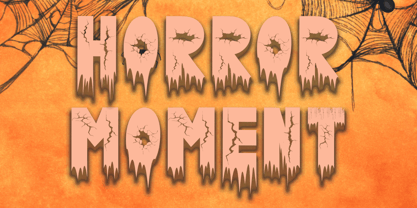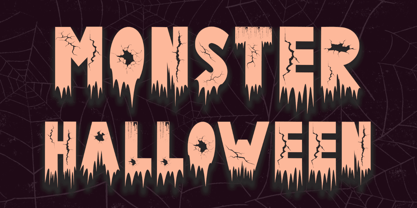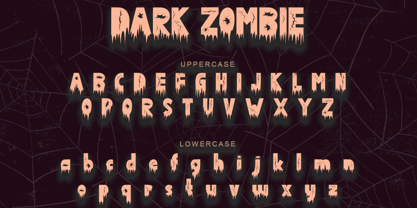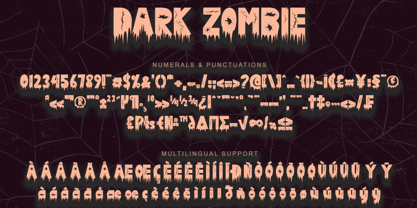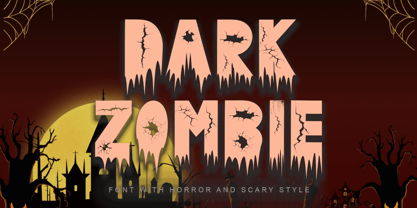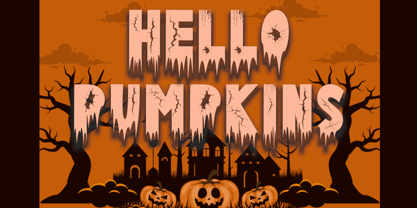
Dark Zombie
by Yoga Letter
The Dark Zombie Font Family was designed by Isroni Yoga Prasetya and published by Yoga Letter. Dark Zombie contains 1 styles. More about this family
"Dark Zombie" is a unique and spooky horror font. It features uppercase and lowercase letters, numerals, punctuation, and multilingual support. It's perfect for Halloween, movie titles, book titles, Christmas, back to school, fall, scary stories, logos, tattoos, stickers, and more.
Designers: Isroni Yoga Prasetya
Foundry: Yoga Letter
Dark Zombie